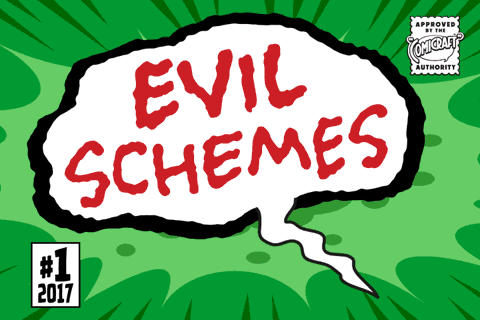
Evil Schemes
Big Brother is watching you and vile Supervillains are afoot! The cunning characters involved in this font have devised a convoluted Machiavellian plot for world domination that encompasses mind parasites, twitter, deadly viruses in the public water system and possibly a nuclear dirty bomb in a downtown Metropolitan area to which they’ve strapped your girlfriend and a digital clock rapidly counting down to zero! Will Good Triumph and Defeat Evil?! Stay tuned...
Four weights with alternate uppercase alphabets
Plus: Automatic alternates